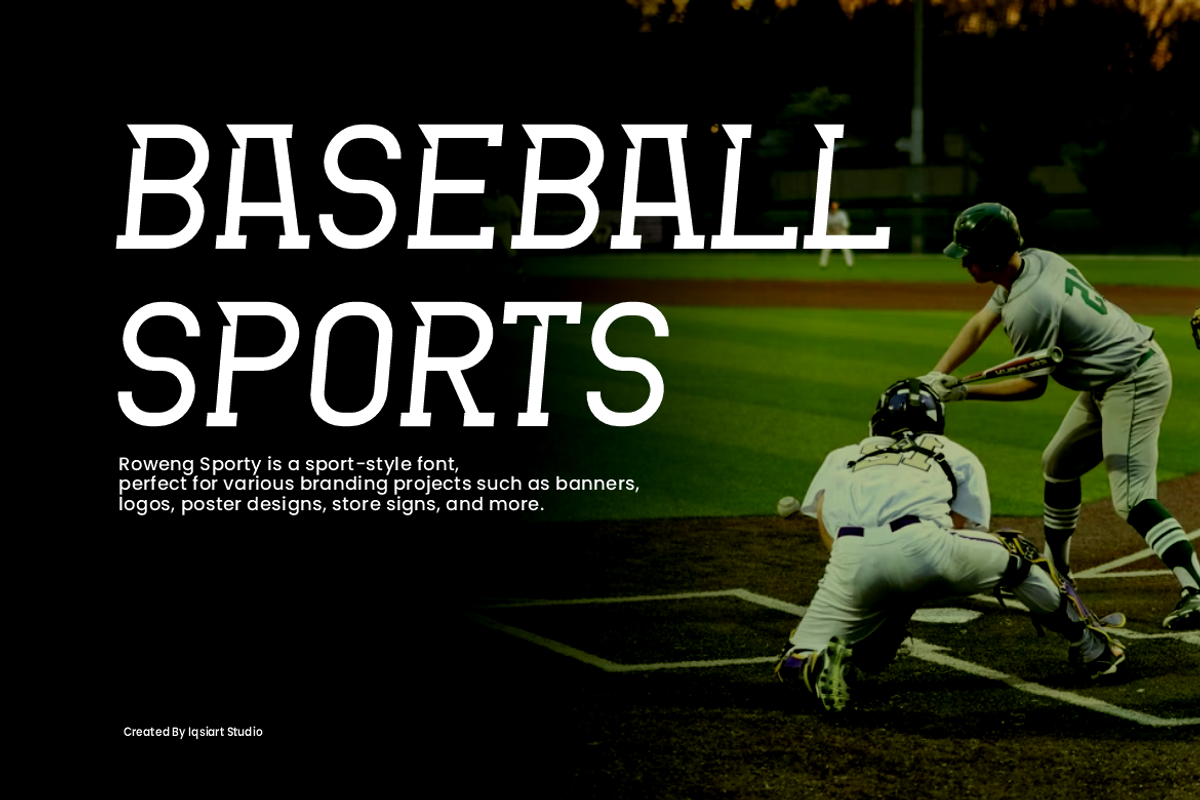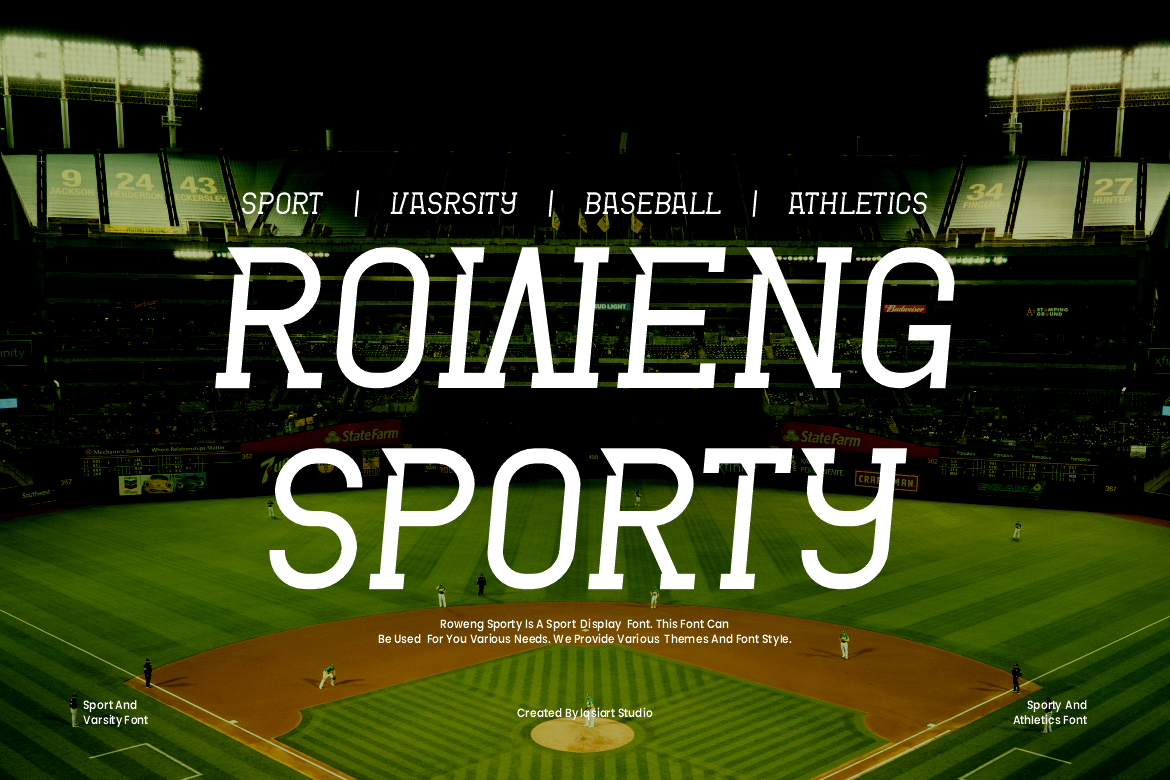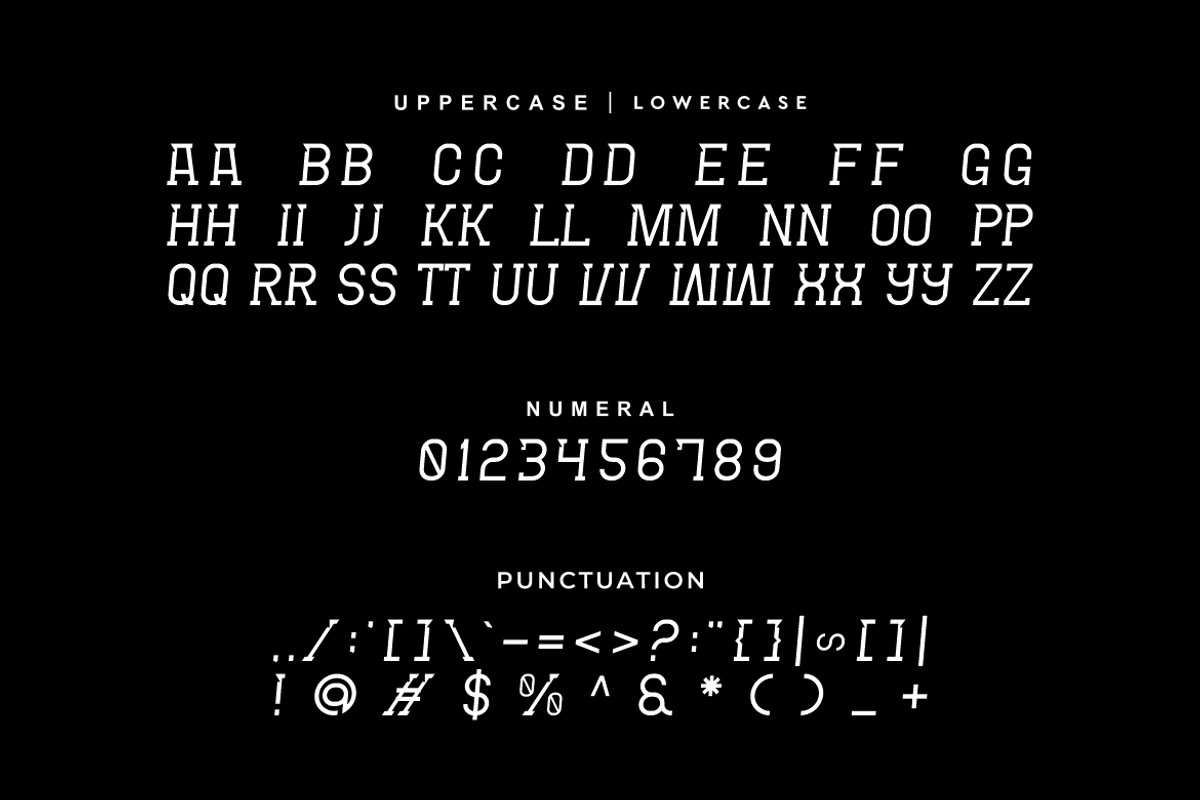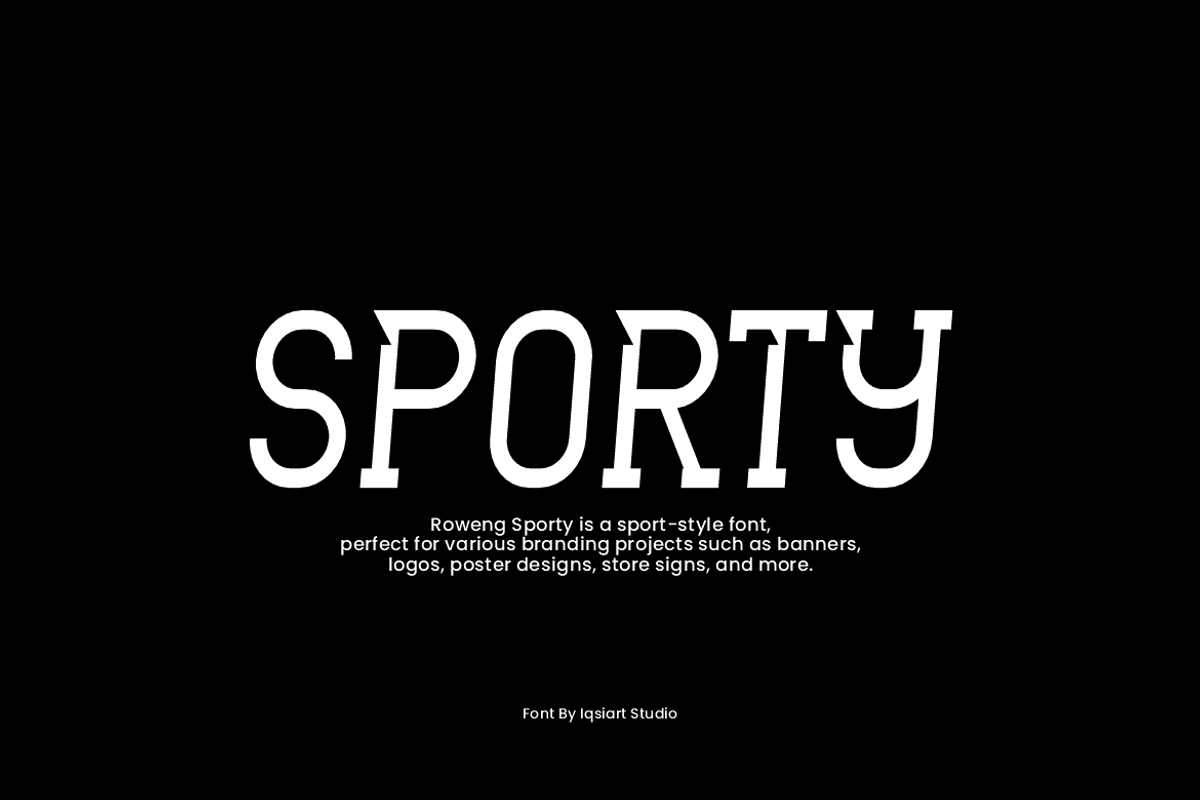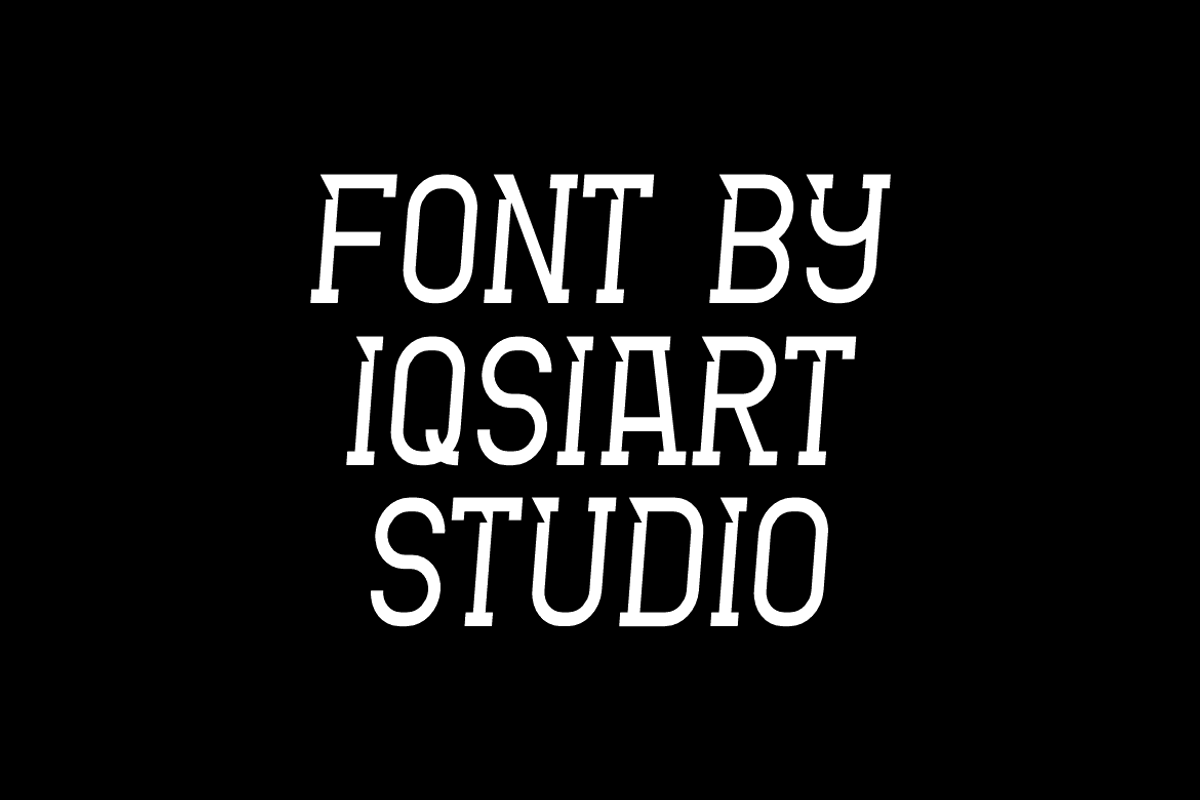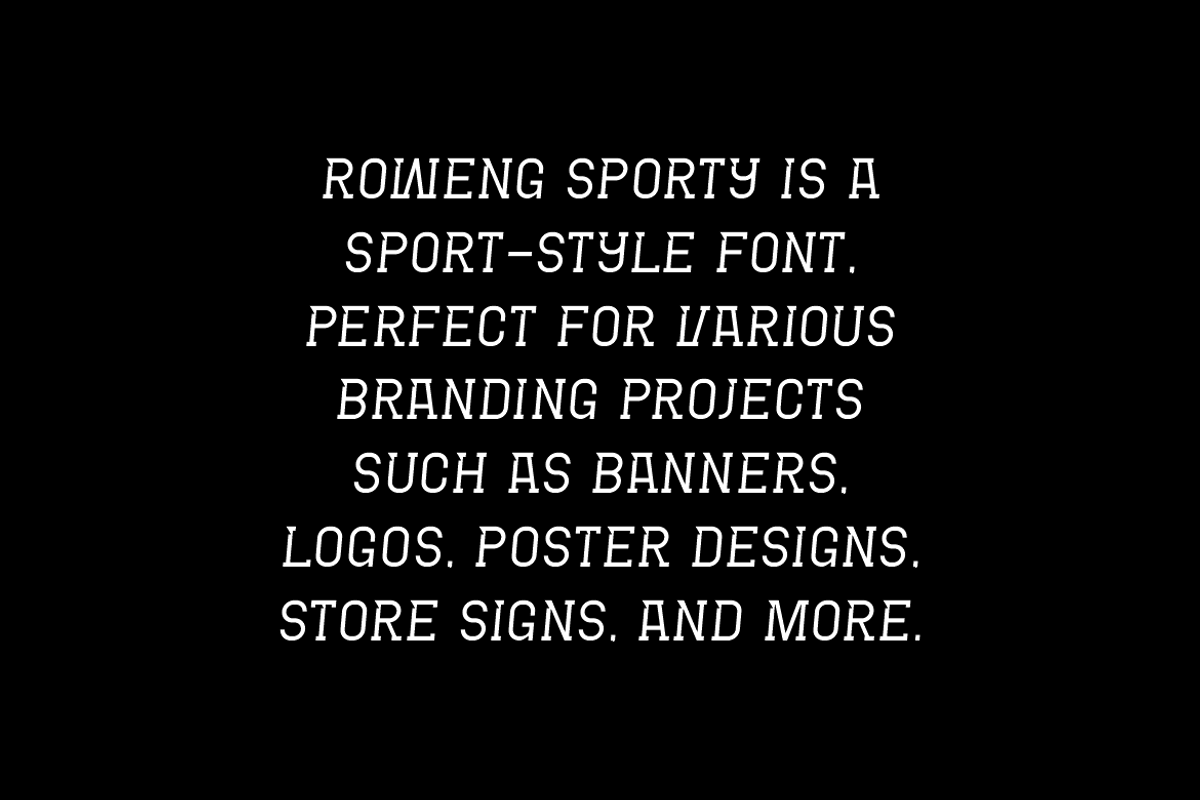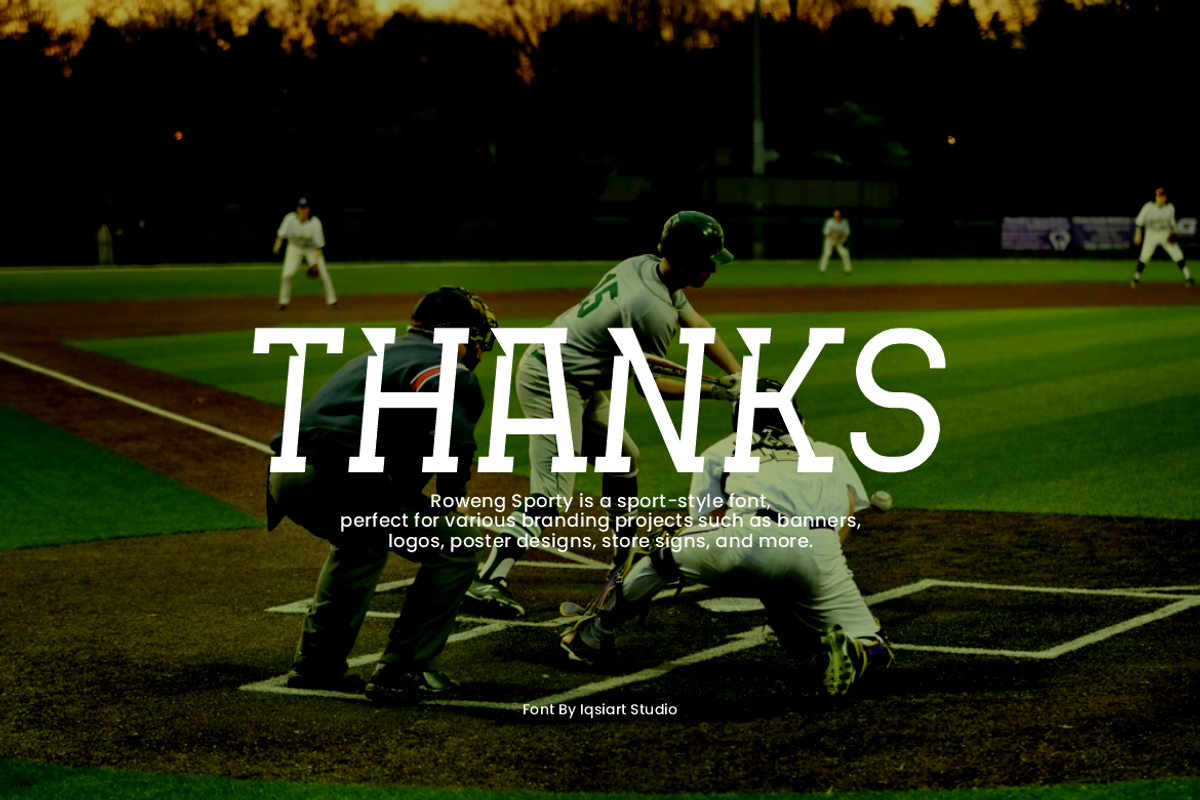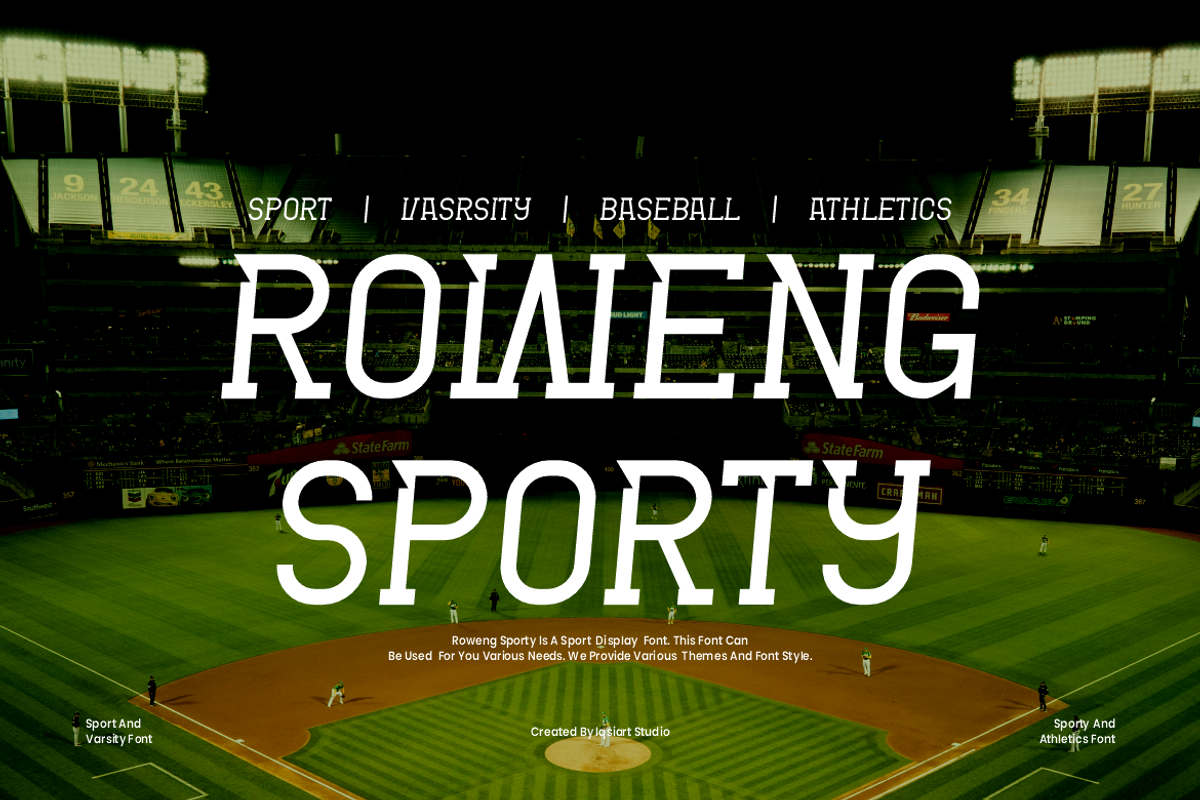
Roweng Sporty - Baseball Font
Roweng Sporty Font is a bold and authentic display typeface that suits a variety of design needs. We offer a wide range of themes and font styles — visit our profile to explore more and find the perfect style for your project.